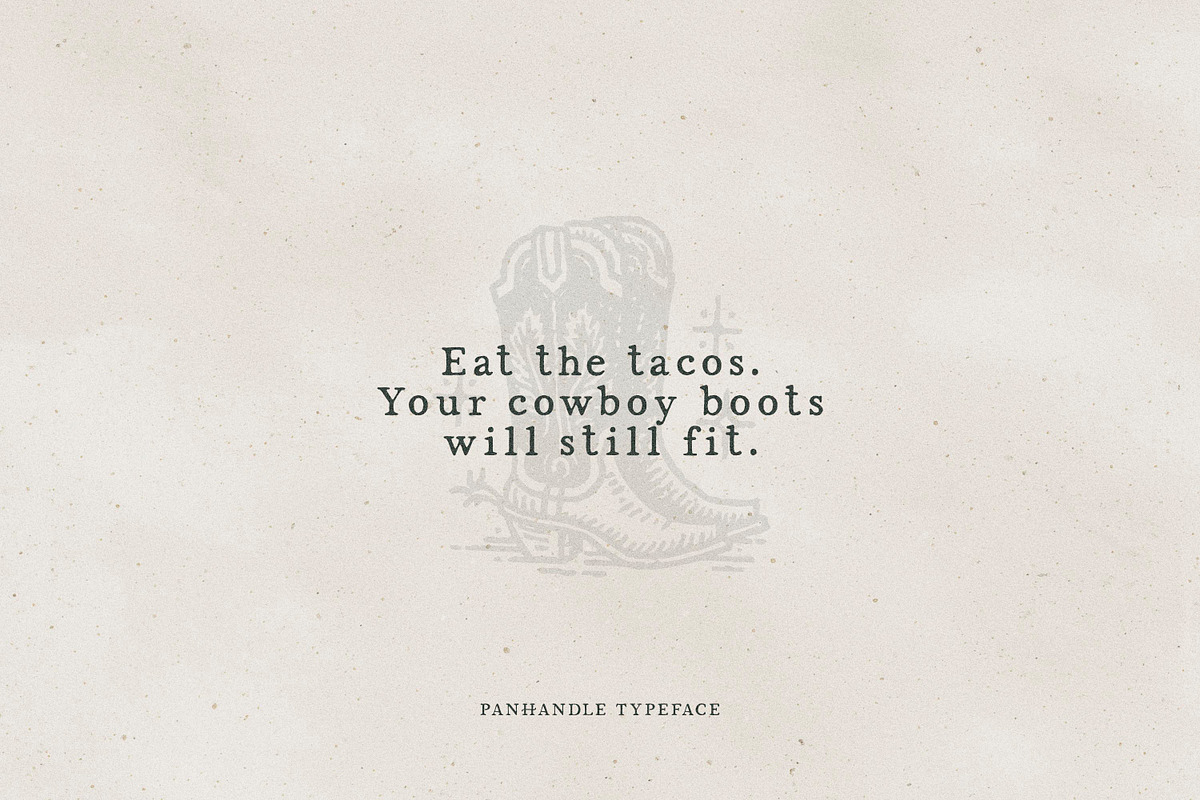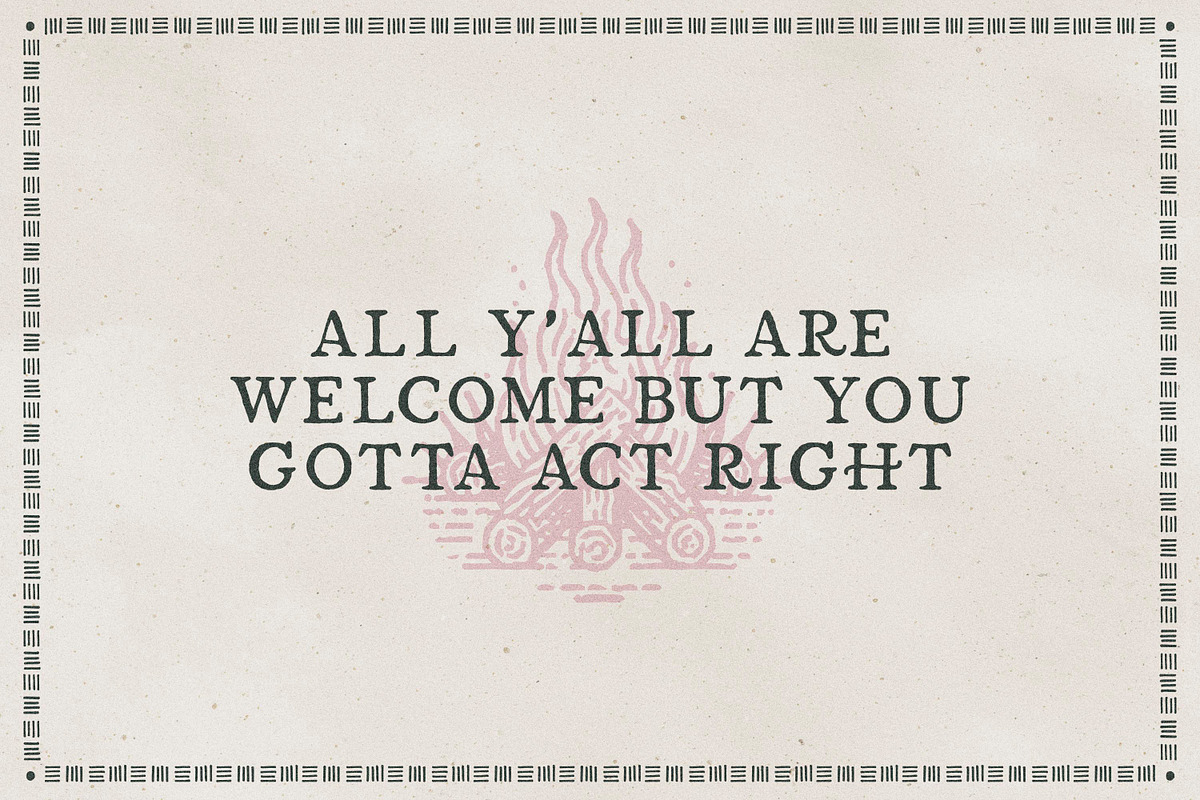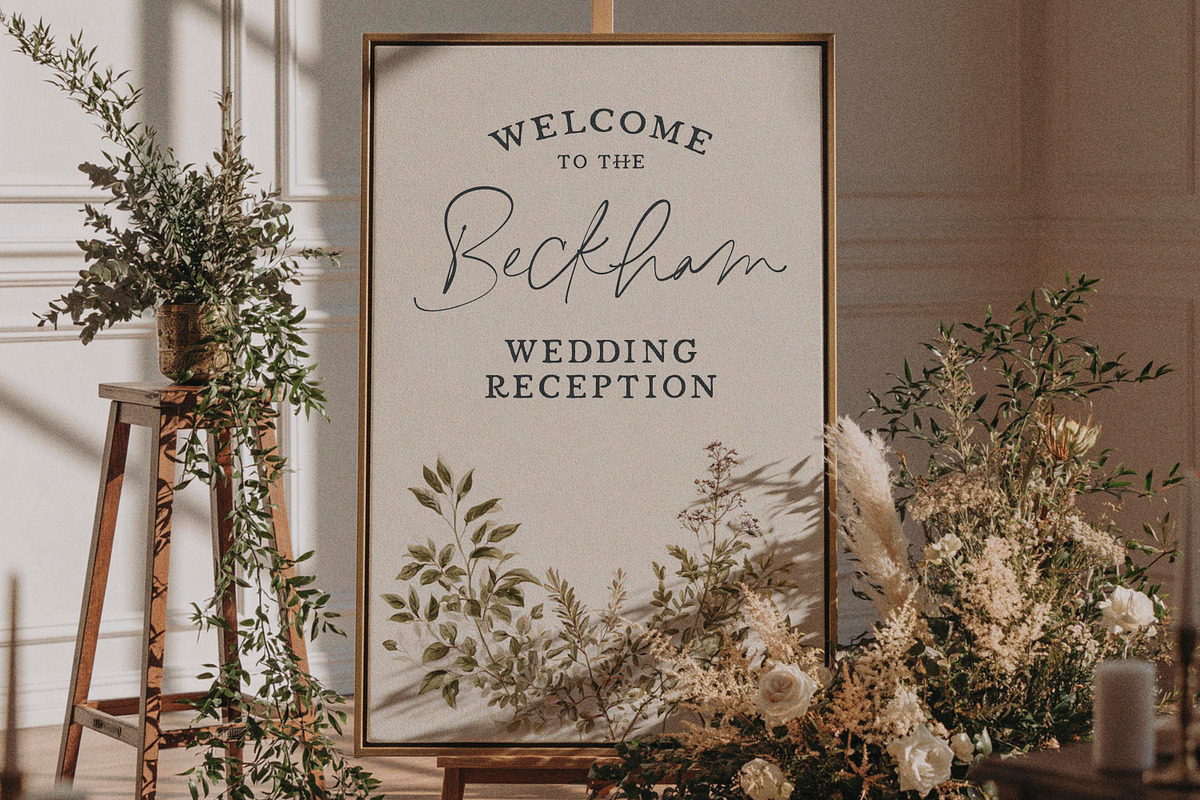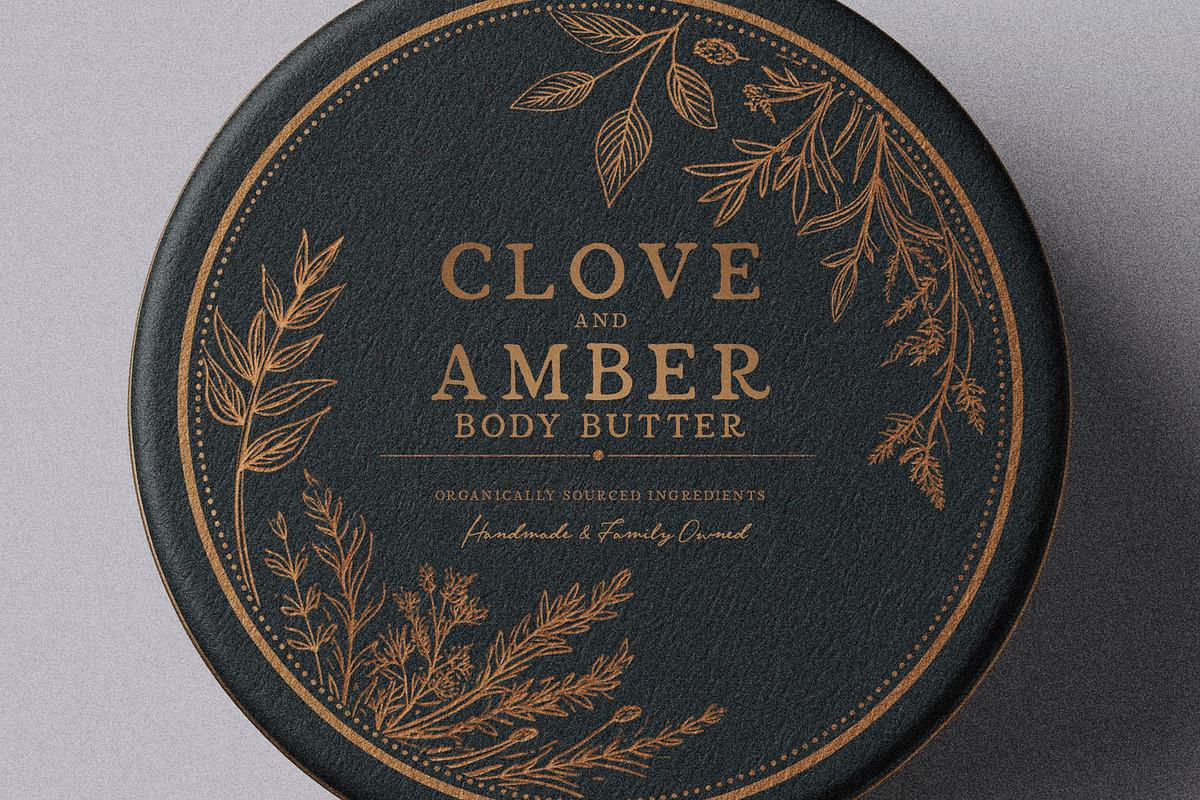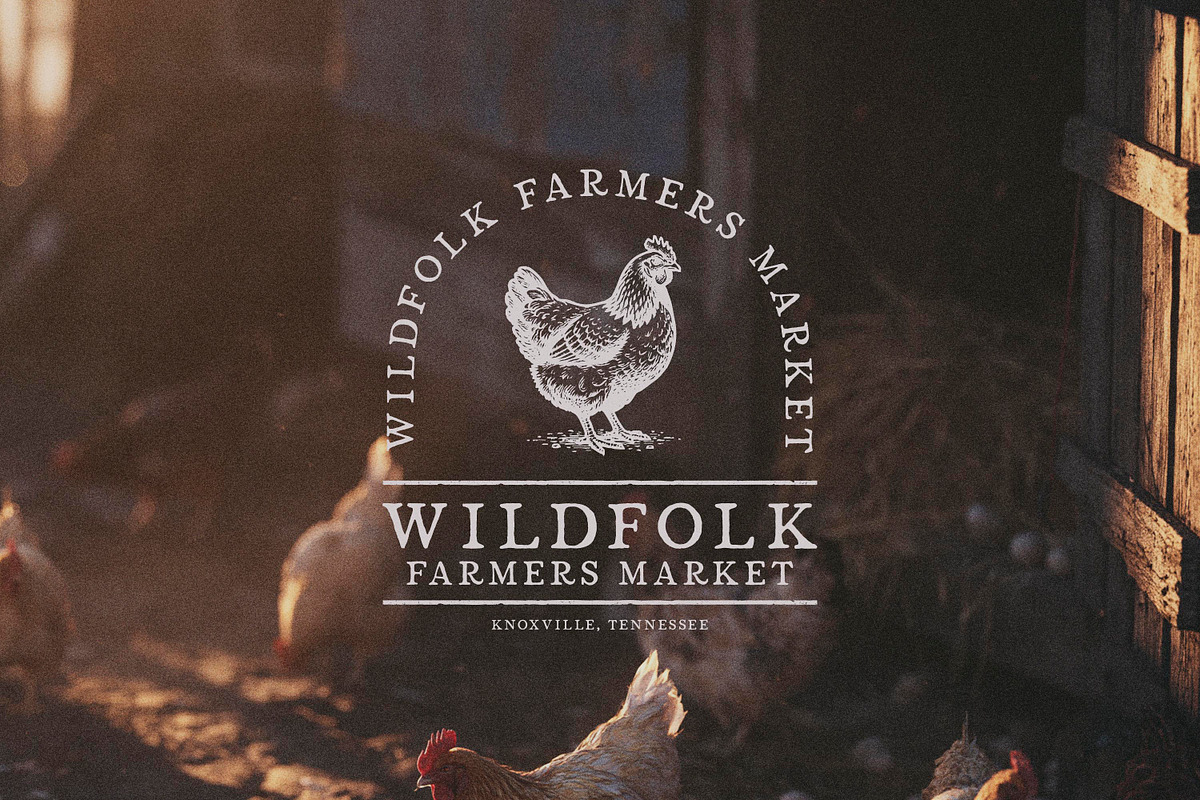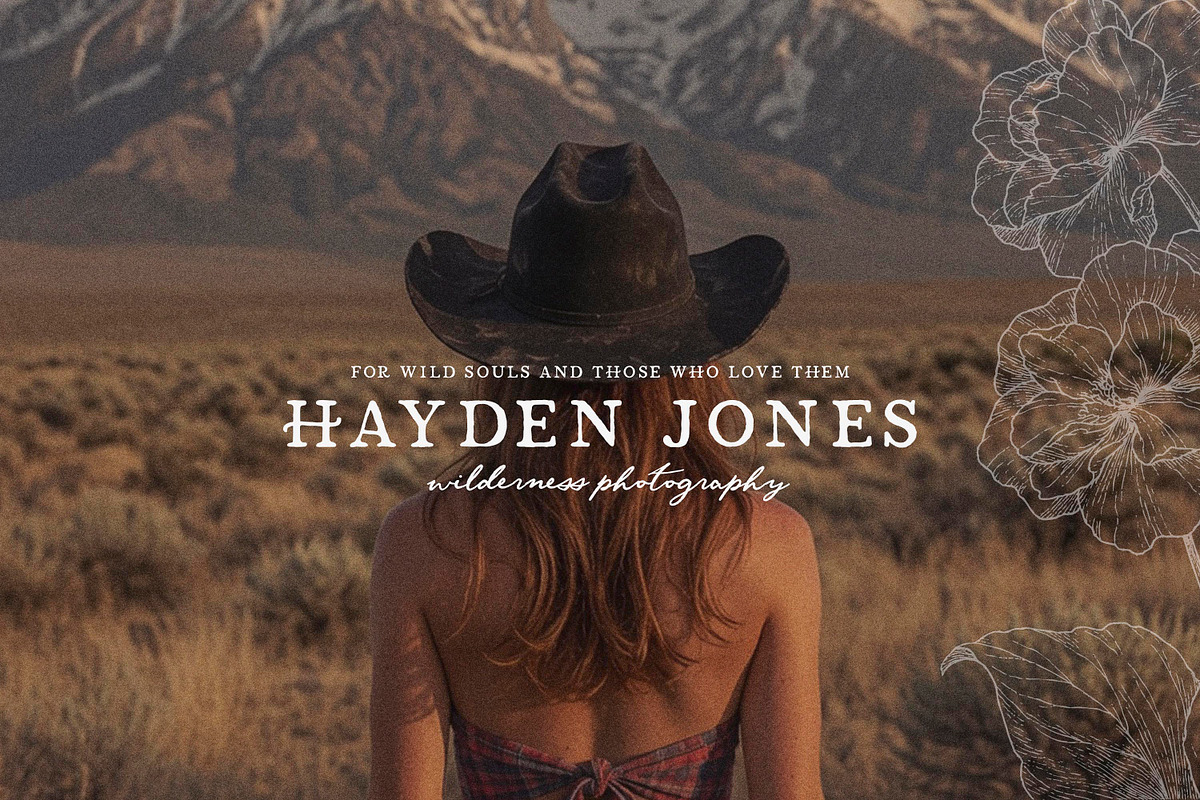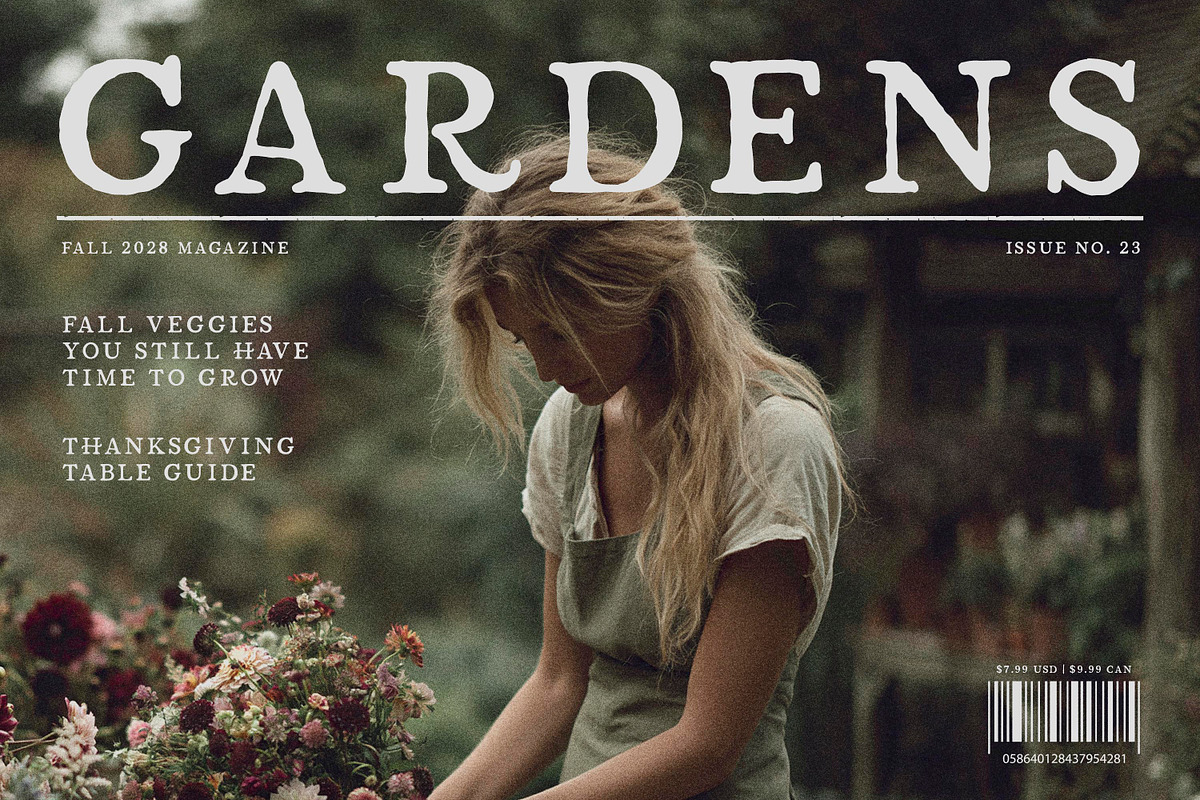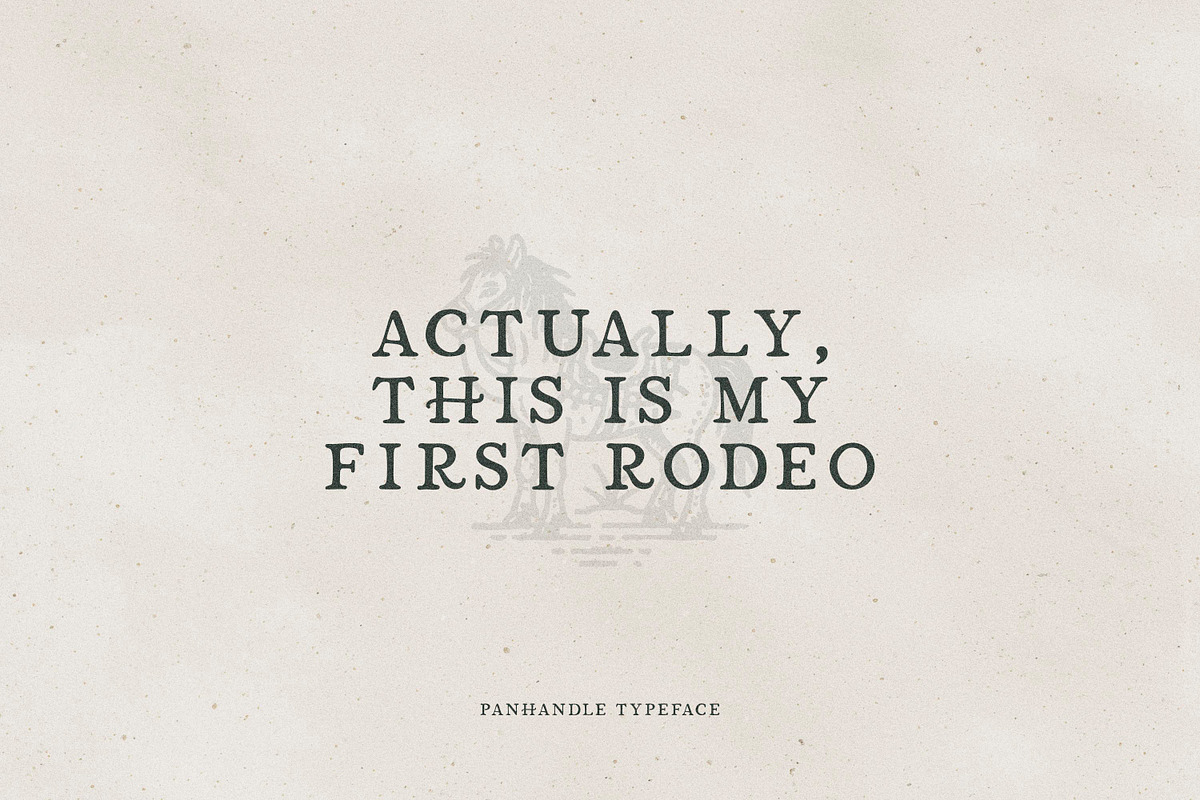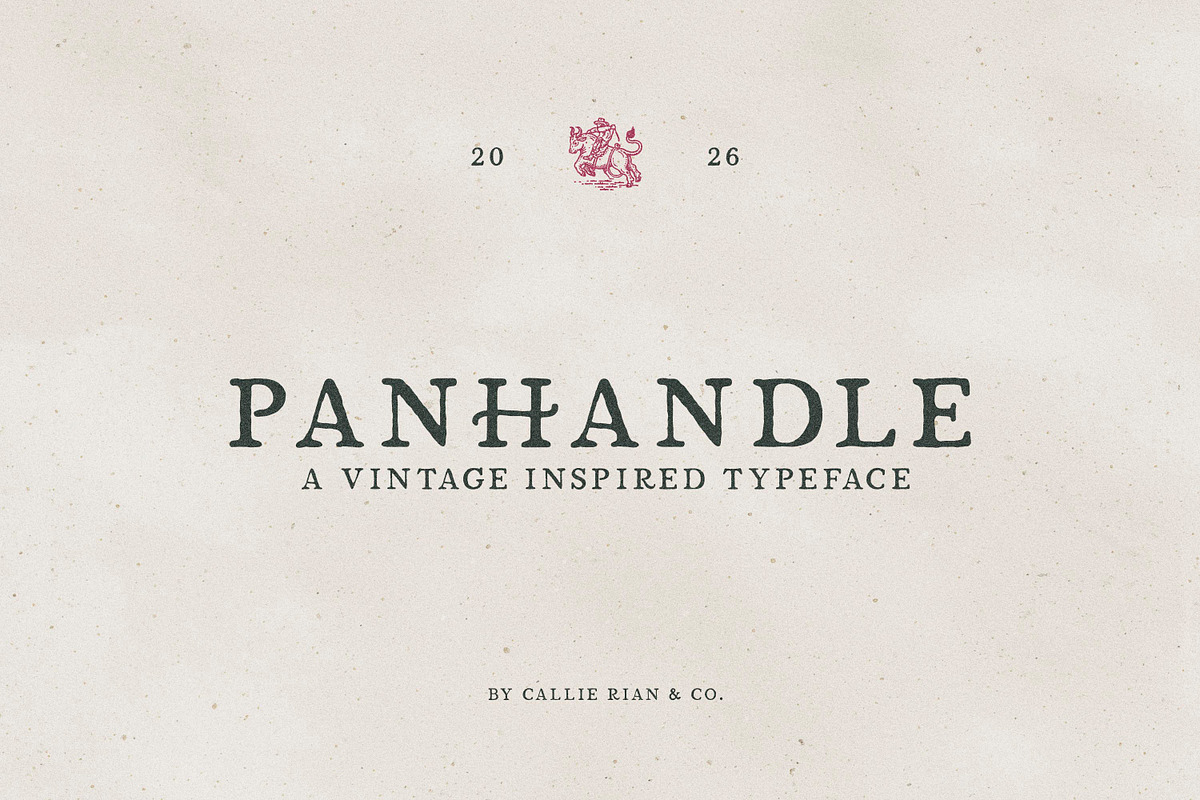
Panhandle Vintage Serif
Introducing Panhandle Vintage Typeface, a hand drawn serif with a vintage vibe. Enjoy two versions that look beautiful on everything from signage to packaging.
- Please Note these fonts are handwritten & vectorized, so the edges are purposely irregular. They are best used on print/web, rather than Cricut or Silhouette.